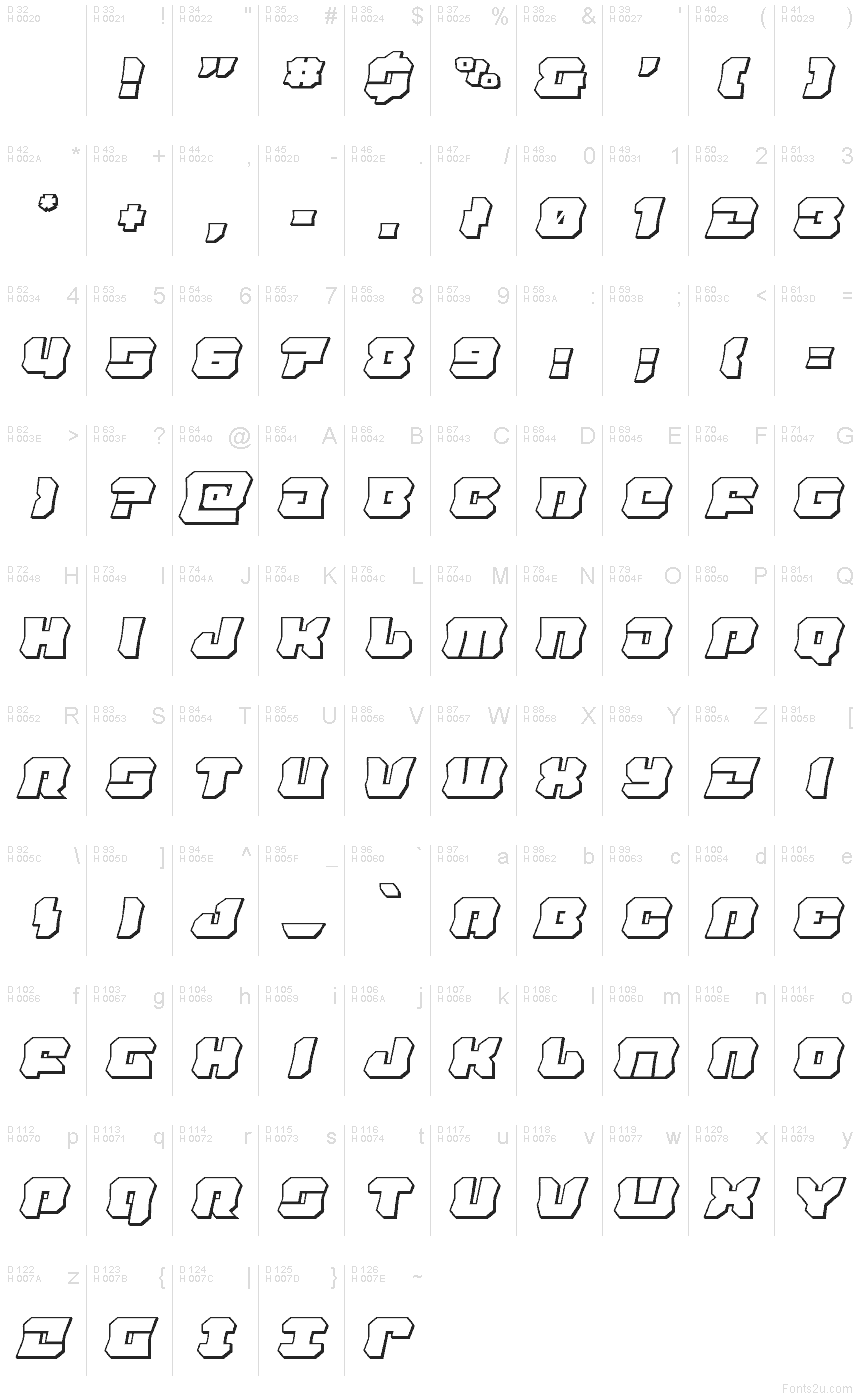
Krieger Bell 3D Italic
Krieger Bell 3D Italic font by Iconian Fonts is a free 3D techno display typeface that looks like it was etched out of polished metal and pushed into motion. Each letter leans forward with a tight, angular rhythm, while the beveled 3D edges and inner highlights create a slick, almost chrome-like sheen. The result is a bold, futuristic texture that feels both mechanical and fast, perfect when you need type to look engineered rather than simply drawn.
Using Krieger Bell 3D Italic, headlines instantly read like game titles, mech logos, or sci-fi interface labels. This free font shines on esports branding, tech event posters, YouTube channel art, app splash screens, stickers, and bold web banners where you want instant impact. Keep it large to let the 3D facets breathe, and pair it with a clean, neutral sans serif for body copy to keep the overall layout sharp and readable.